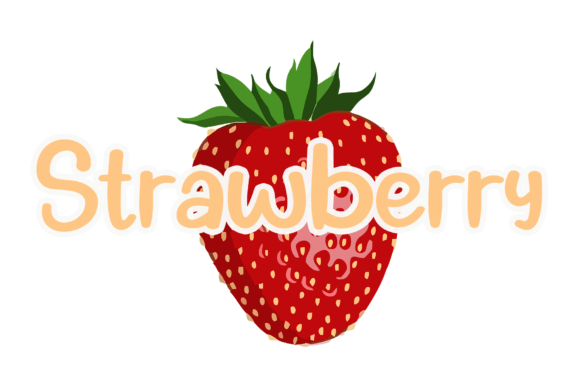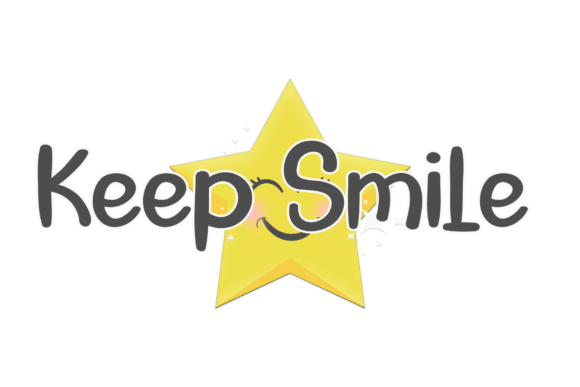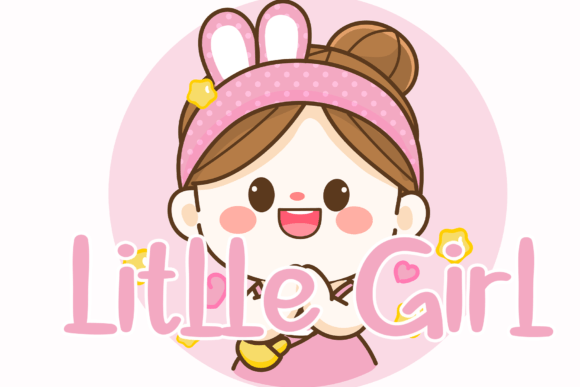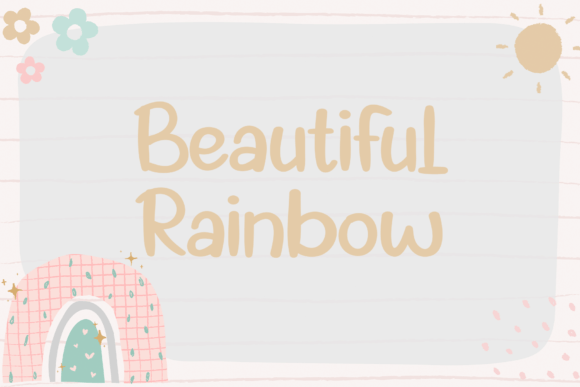
Going Bananas with Design
You’ve finally landed that big project, and you’re bursting with ideas. You sit down at your desk, surrounded by papers, pens, and a blank computer screen. The cursor blinks, waiting for your creative spark to ignite. You want to create something truly unique, something that captures the essence of your vision. That’s when you stumble upon it – the perfect font to bring your project to life.
Meet Banana Font, a simple yet effective display font designed to add a natural touch to your work. Whether it’s a greeting card, a headline, or a logo, Banana Font is the perfect companion for your next creative venture. With its versatility and effortless charm, it’s no wonder designers are going bananas for this font.
Banana Font Key Features
- Unique Characteristics: Banana Font features a distinctive, curved shape with a warm and inviting tone, making it ideal for use in food, beverage, and lifestyle branding.
- Language Support: The font supports a wide range of languages, including Latin, Cyrillic, and Greek, making it a versatile choice for global branding efforts.
- Vector Graphics: Banana Font is designed as a vector font, allowing it to be scaled up or down without losing any quality, making it perfect for use in logos, icons, and other graphics.
Designer Review: Banana Font
Overall, I’d say Banana Font is a unique and quirky addition to any design project. It’s definitely a conversation starter!
- ✨ Its playful, energetic vibe is perfect for creating a lighthearted atmosphere in advertising, packaging, or social media graphics.
- ✨ The font’s irregularities add a touch of humanism, making it feel more approachable and relatable.
- ✨ It’s highly legible, even at smaller font sizes, which is a must-have for any design project.
- ⚠️ The font may not be suitable for formal or professional designs, as it can come across as too playful or immature.
- ⚠️ Its irregularities can sometimes make it difficult to read, especially for people with visual impairments.
Overall, I’d give Banana Font 3.5 out of 5 stars. It’s a great choice for playful, creative projects, but it may not be the best fit for more serious or formal designs.
Tips for Getting the Most Out of Banana Font
Use Banana Font for:
- Playful and creative projects.
- Food-related branding and marketing materials.
- Children’s educational materials.
Remember to pair Banana Font with other complementary fonts to create a visually appealing design.
Alternatives to Banana Font
Pacifico is a beautiful script font that works well for titles and headings. It has a elegant and luxurious feel, making it perfect for luxury brands and high-end designs. Pacifico is a great alternative to Banana Font when you need a more sophisticated and refined look.
Comparison to Banana Font: Pacifico is more elegant and refined, while Banana Font is more playful and casual.
Great Vibes is a modern script font that works well for titles and headings. It has a fun and energetic feel, making it perfect for creative and playful designs. Great Vibes is a great alternative to Banana Font when you need a more modern and trendy look.
Comparison to Banana Font: Great Vibes is more modern and trendy, while Banana Font is more vintage and playful.
Carolyna Pro is a elegant script font that works well for titles and headings. It has a sophisticated and refined feel, making it perfect for luxury brands and high-end designs. Carolyna Pro is a great alternative to Banana Font when you need a more classic and timeless look.
Comparison to Banana Font: Carolyna Pro is more classic and timeless, while Banana Font is more playful and casual.
Alex Brush is a elegant script font that works well for titles and headings. It has a beautiful and refined feel, making it perfect for creative and artistic designs. Alex Brush is a great alternative to Banana Font when you need a more elegant and sophisticated look.